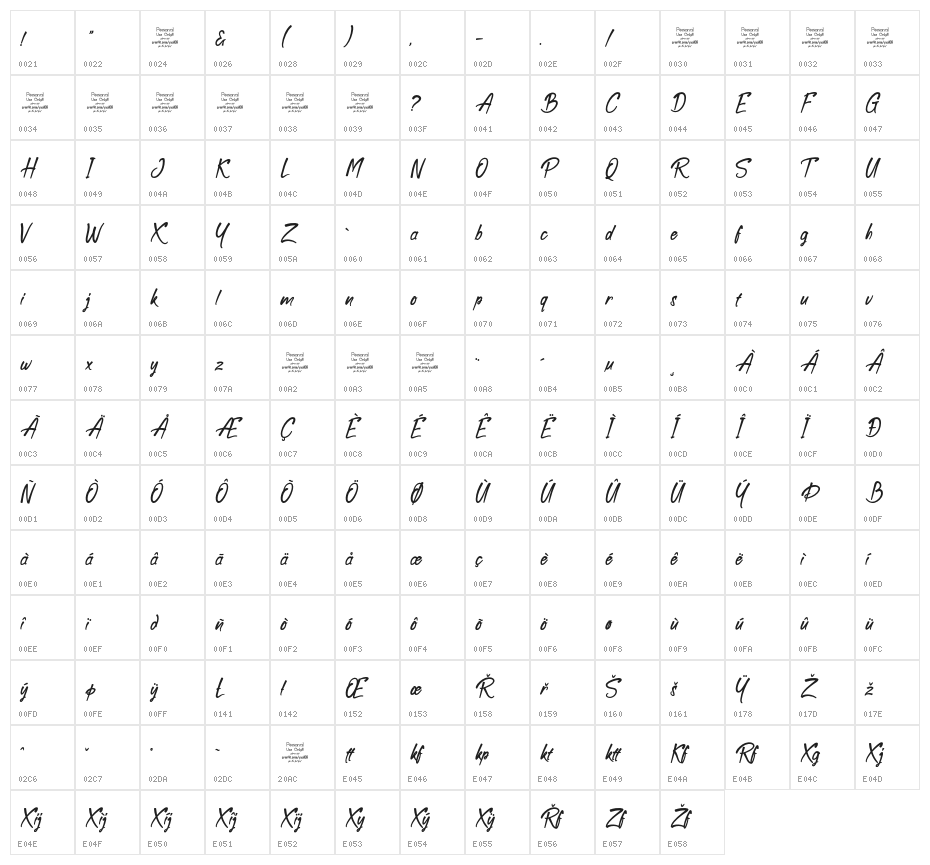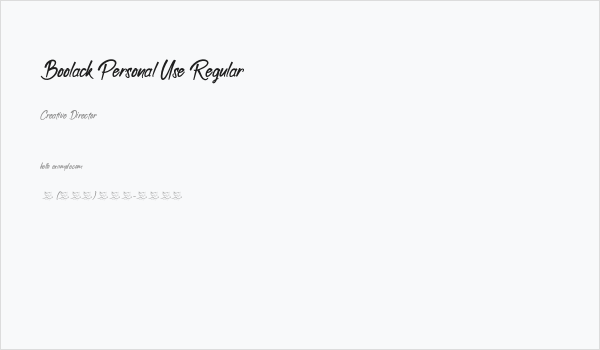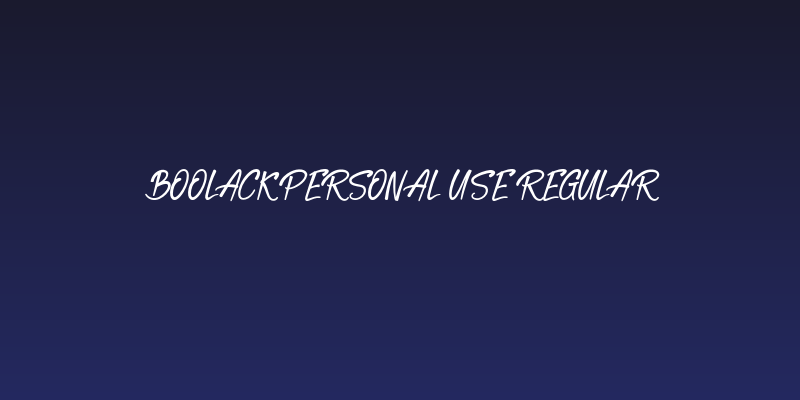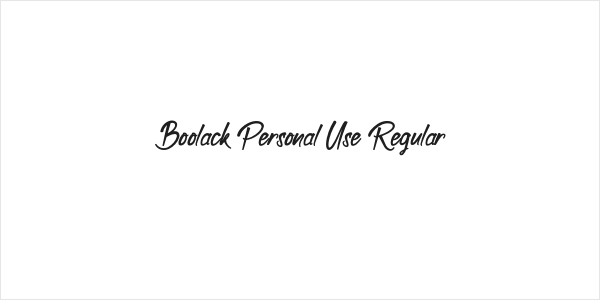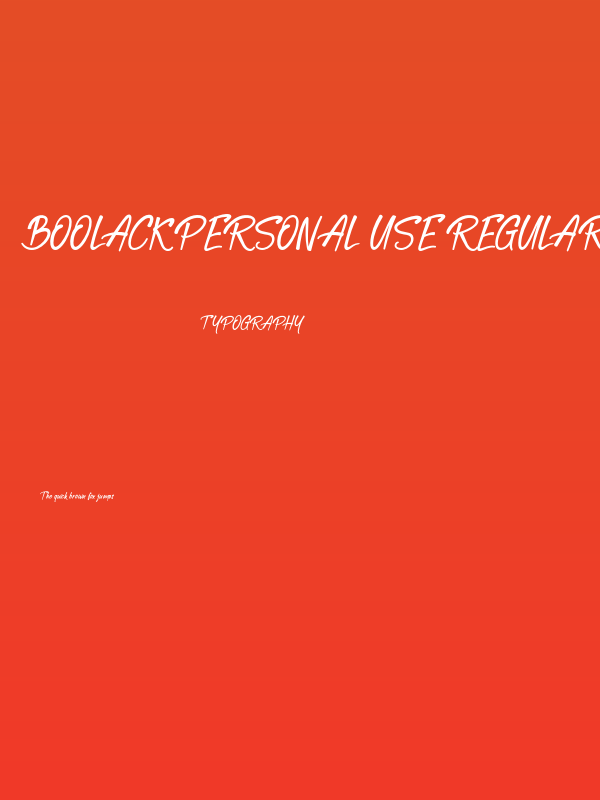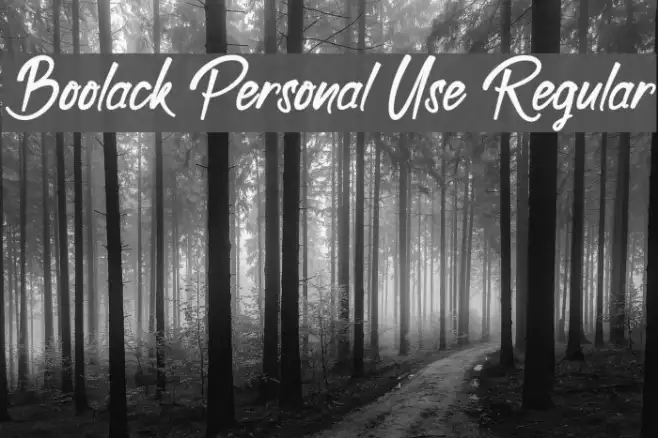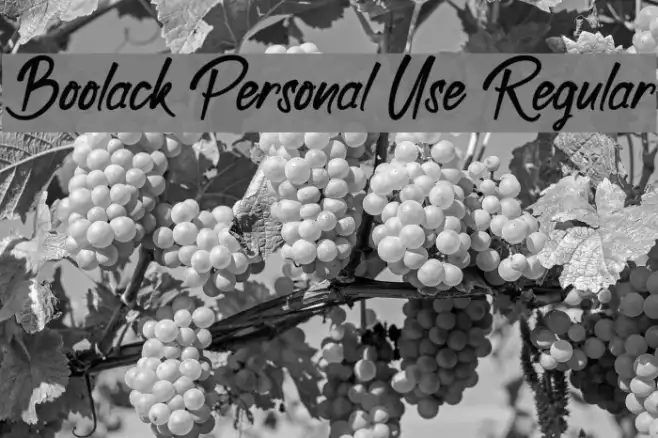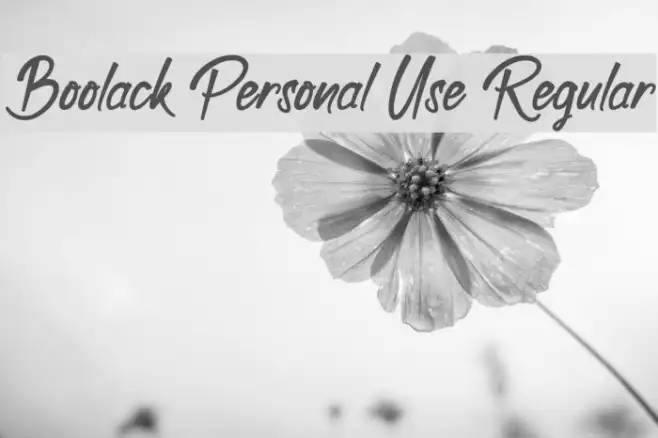
Boolack Personal Use Regular Font
Boolack Personal Use Regular Description
This font features a dynamic and flowing script style, characterized by its elegant, cursive letterforms. The uppercase letters are bold and sweeping, with a slight slant that adds a sense of motion and grace. The lowercase letters maintain a consistent style, with smooth, connected strokes that enhance readability while retaining a handwritten aesthetic. The numerals and special characters are crafted to match the overall script style, ensuring a cohesive look across all text. This font exudes a personal and artistic flair, making it ideal for creative projects.
| Proposed Projects | Ideal for wedding invitations, greeting cards, personal branding, and artistic projects. |